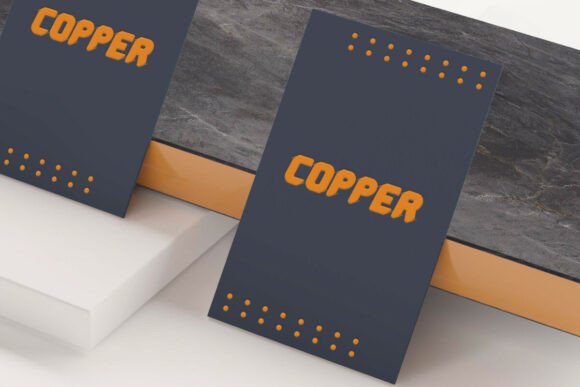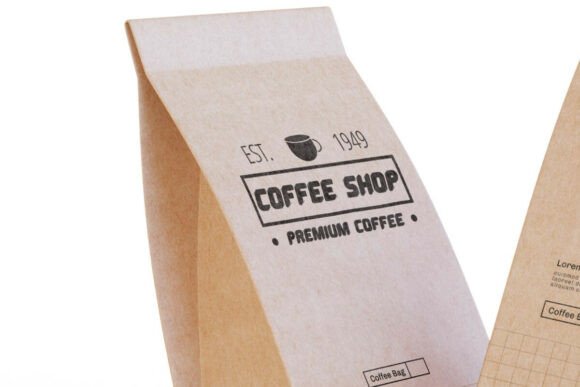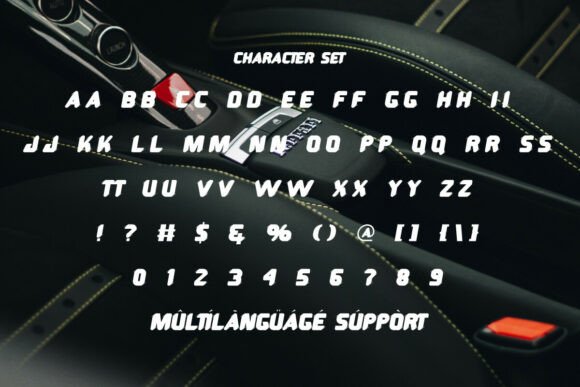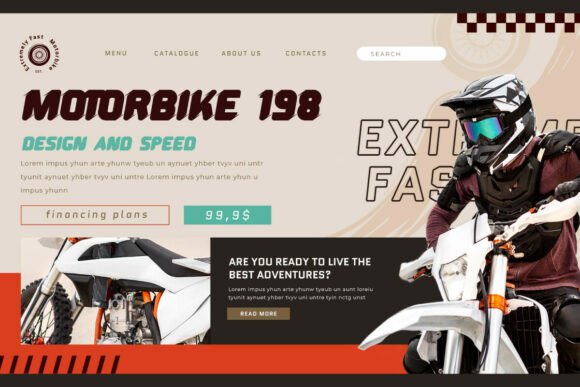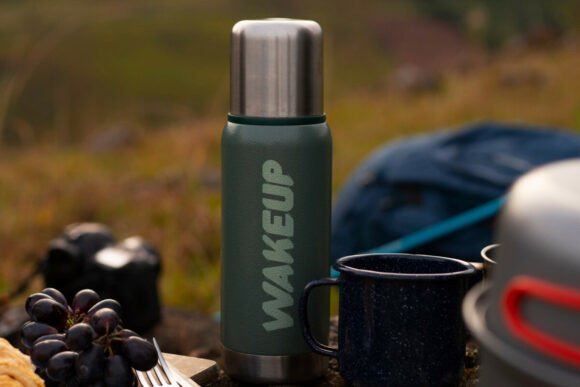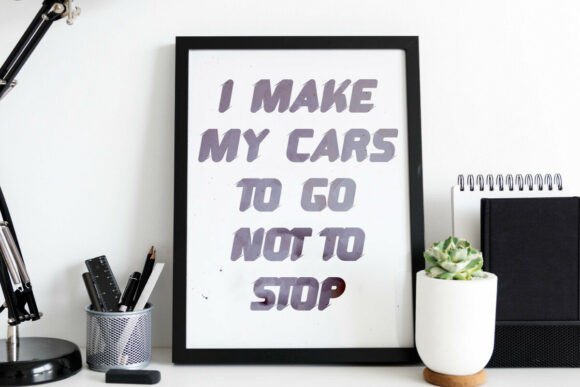
Introduction to Engine Brake Font
As a designer, you know that sometimes the right font can make all the difference in bringing a project to life. Whether you’re working on a high-energy automotive campaign or a sports-themed poster, the right font can capture the essence of the brand and leave a lasting impression on your audience. That’s why we’re excited to introduce you to the Engine Brake Font, a bold and powerful display typeface that’s built for speed and precision.
With its strong italic stance and sharp, consistent angles, the Engine Brake Font delivers a dynamic and fast-moving look that’s perfect for designs that demand intensity and motion. Whether you’re looking for a font to add some edge to your next creative project or a reliable design resource for your next high-impact campaign, the Engine Brake Font is a valuable addition to any designer’s toolkit.
Key Features of Engine Brake Font
- High-quality design: Engine Brake Font is a premium font designed for creative projects, offering a unique and stylish look.
- Unique characteristics: The font features a bold and edgy design, making it perfect for projects that require a strong visual statement.
Honest Review: Engine Brake Font
As a designer, I’ve come across my fair share of fonts, but the Engine Brake Font is one that stands out. I was excited to try out this free download, and I’m happy to report that it exceeded my expectations.
Here are some things that work well with the Engine Brake Font:
- ✨ High quality design that’s perfect for a creative project
- ✨ A wide range of weights and styles to choose from, making it versatile for any design need
- ✨ The font has a transparent background, which makes it easy to customize and pair with other design elements
- ⚠️ The font may not be suitable for smaller text sizes, as it can become difficult to read
- ⚠️ Some users may find the font a bit too bold or overwhelming, so it’s essential to use it sparingly
Overall, I’m impressed with the Engine Brake Font. It’s a great addition to any designer’s toolkit, and its high quality design makes it perfect for a creative project. If you’re looking for a free download that won’t disappoint, I highly recommend giving the Engine Brake Font a try.
Tips for Getting the Most Out of Engine Brake Font
Use Engine Brake Font for headings, titles, and body text in your design projects. Experiment with different font sizes and colors to create a visually appealing design.
Engine Brake Font is ideal for:
– Creating eye-catching headings and titles
– Designing brochures, flyers, and posters
– Developing branding materials, such as logos and business cards
Alternatives to Engine Brake Font